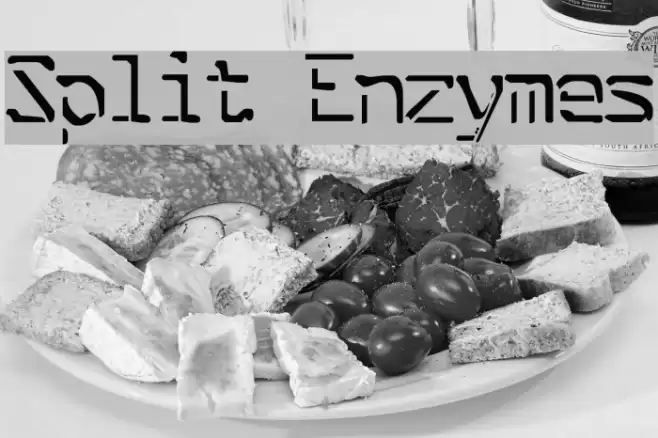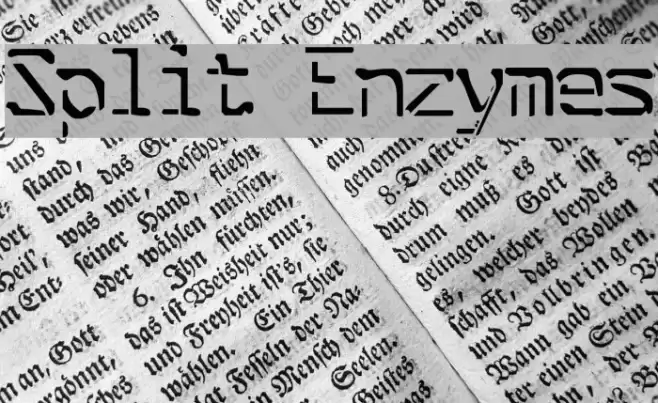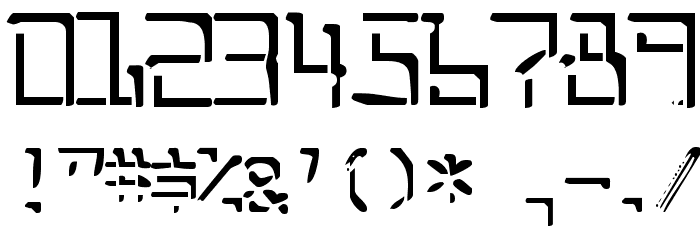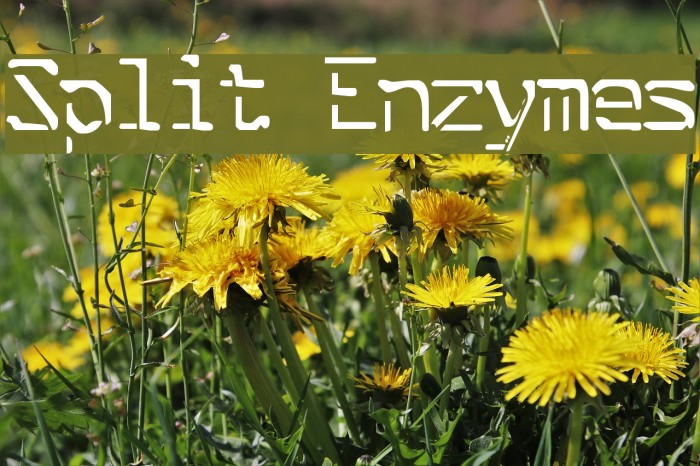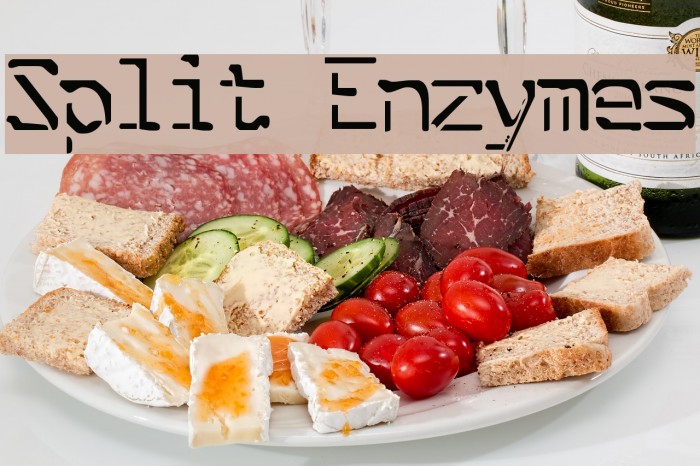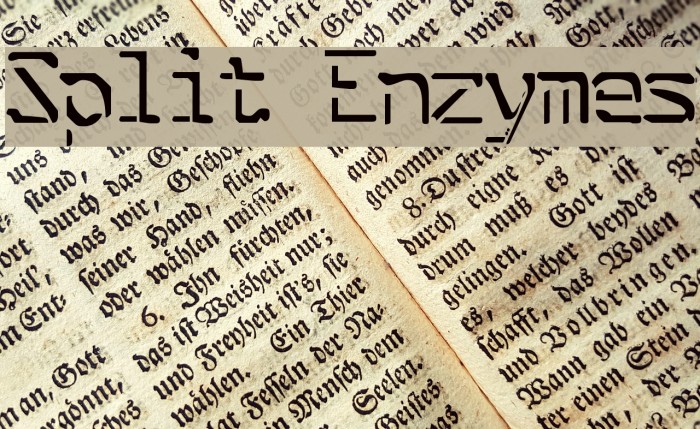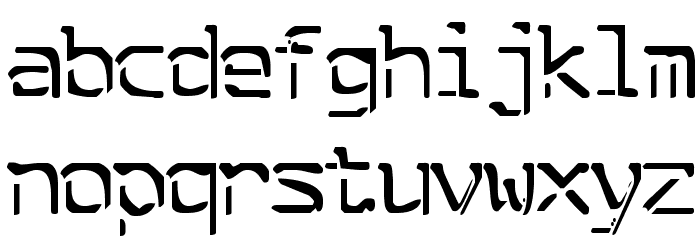
Split Enzymes Font
Split Enzymes Description
This font features a unique, fragmented design that gives each character a distinct, futuristic appearance. The letters are composed of broken lines and geometric shapes, creating a sense of movement and dynamism. The uppercase and lowercase letters maintain a consistent style, with angular cuts and sharp edges. Numbers and special characters follow the same design principles, ensuring uniformity across the typeface. The overall look is modern and edgy, suitable for projects that require a bold and unconventional aesthetic.
A fragmented, futuristic font with angular cuts and geometric shapes from 3D fonts.
- Proposed Projects: Ideal for sci-fi themed designs, technology branding, video game titles, and modern art posters.